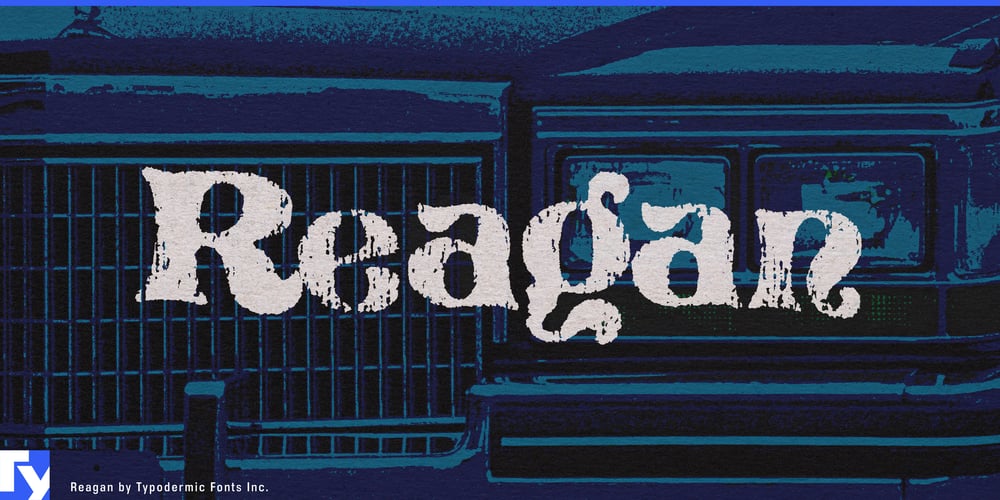
Reagan
Reagan font
Reagan Font Family was designed by Ray Larabie and published by Typodermic. Reagan contains 1 styles and family package options. Step into the shadows of the early ’80s with Reagan, a typeface that captures the somber undercurrent of an era teetering on the edge of excess. This isn’t the neon-bright, bubbly ’80s of popular memory—it’s the gritty reality lurking beneath the surface.Reagan embodies the worn-out spirit of a decade struggling to find its identity. Its textured, vintage t-shirt aesthetic isn’t a celebration, but a tired sigh of nostalgia for better days. Each letter seems to sag under the weight of unfulfilled promises and economic uncertainty. Inspired by the Pretorian typeface that once symbolized optimism, Reagan now feels like a cruel joke. The flowery Victorian revival that spread across low-end design in the late ’70s has wilted, leaving behind a typeface that’s more weary than whimsical. It’s the perfect font for expressing disillusionment with the American Dream.Reagan’s letter pair ligatures don’t so much break up monotony as they do highlight the interconnected nature of societal problems. Use it for posters announcing factory closings, or flyers for support groups—it’ll fit right in. This typeface speaks volumes in multiple languages, from Afrikaans to Zulu, carrying a universal message of malaise across borders. It’s a reminder that disappointment knows no linguistic boundaries.Reagan isn’t here to uplift or inspire. It’s here to acknowledge the harsh realities of a decade that promised revival but delivered stagnation. It’s for designers who aren’t afraid to confront the dreary underbelly of an era often painted in unrealistically bright colors. Choose Reagan when you need to convey the weight of unfulfilled potential, the dreariness of economic downturns, or the general malaise of a society in flux. It’s not just a typeface—it’s a visual dirge for the death of ’70s idealism.Reagan: Because sometimes, typography needs to tell the whole story, even when it’s not pretty. Get it now and give voice to quiet desperation.